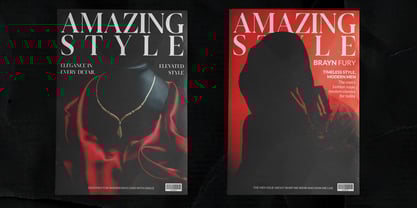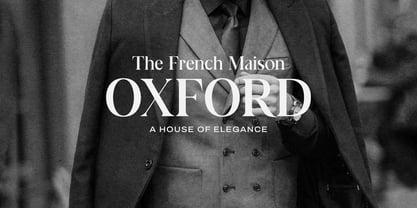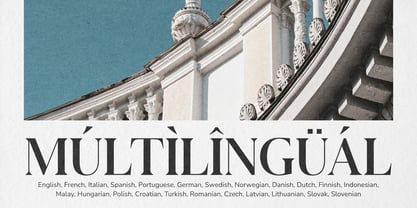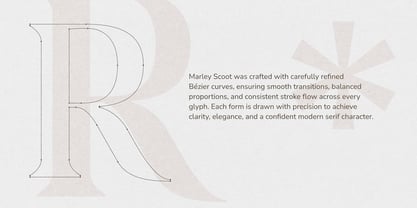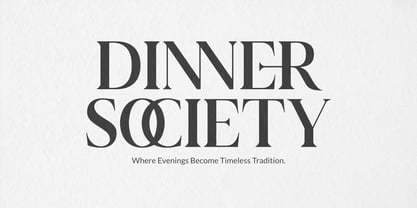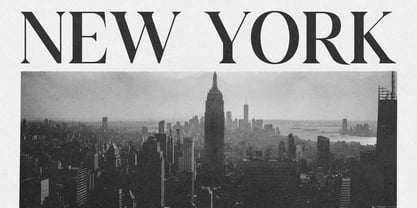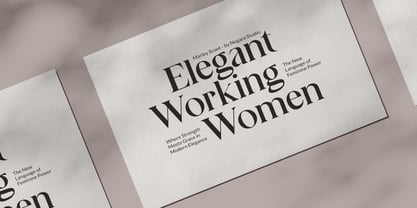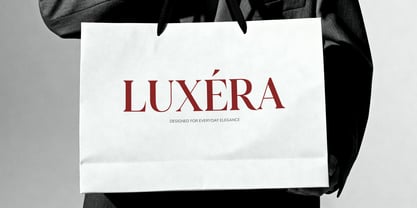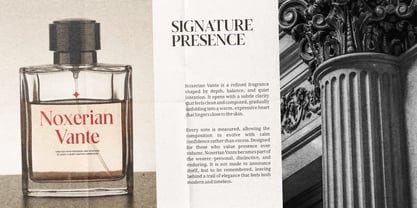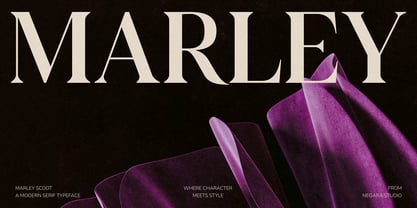
Marley Scoot
by Negara Studio
Marley Scoot is a modern serif typeface with a balanced and confident feel. It combines clean structure with subtle character, making it comfortable to read while still offering a distinct presence. The letterforms are carefully shaped to work well in both display settings and short passages of text. This typeface fits naturally in editorial layouts, branding, logos, invitations, and visual identities. Marley Scoot brings a calm and refined tone without feeling overly formal, making it flexible for a wide range of creative projects. Designed with attention to consistency and usability, Marley Scoot is a reliable choice when you want something modern, clear, and expressive. Works on Mac & Windows Compatible with Adobe, Canva, Affinity, Figma, Corel & more. Marley Scoot supports the following languages; English, French, Italian, Spanish, Portuguese, German, Swedish, Norwegian, Danish, Dutch, Finnish, Indonesian, Malay, Hungarian, Polish, Croatian, Turkish, Romanian, Czech, Latvian, Lithuanian, Slovak, Slovenian